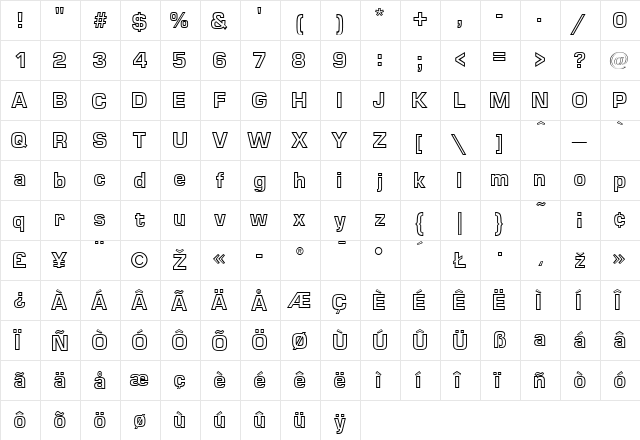
EuropaOutline Regular Font Preview
EuropaOutline Regular
EuropaOutline Regular Font Details
Design Context for EuropaOutline Typeface
EuropaOutline is built around its visual character rather than neutral utility — its distinctive forms are designed to make an impression at display sizes.
Font Pairing: Pair with a clean neutral sans-serif for body copy to let EuropaOutline's character lead without overwhelming the composition.
Pro Tip: Treat EuropaOutline as the centrepiece of your typographic hierarchy. One strong heading set in a decorative face can carry an entire layout.